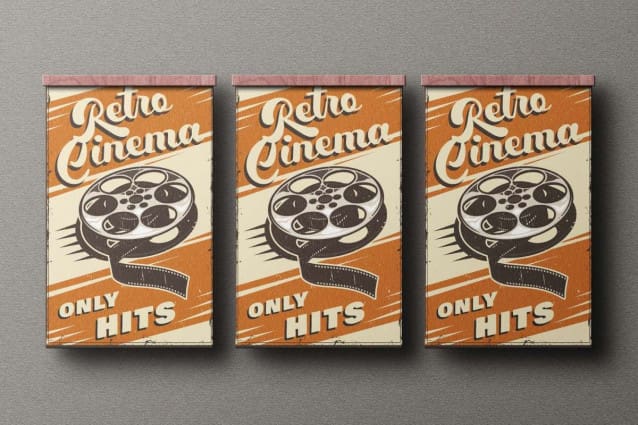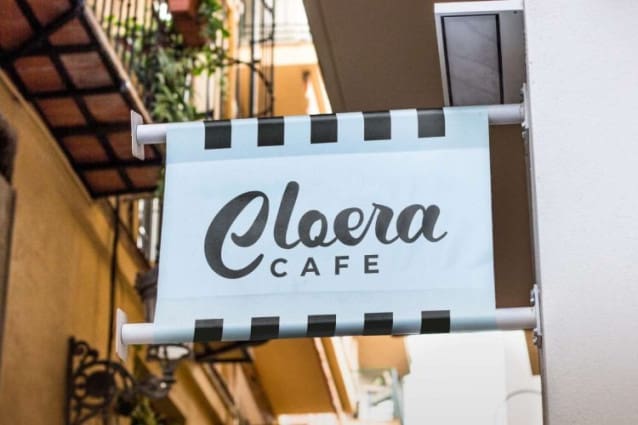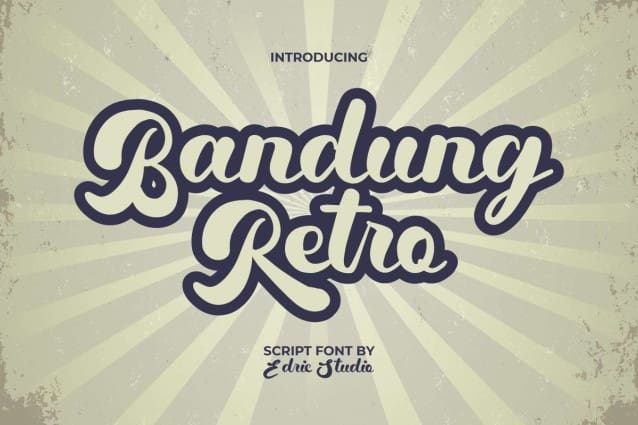
Bandung Retro Font
Bandung Retro Font is a classic 80’s vibe script font with an amazing groovy style. It comes with attractive shapes and styles also comes with multiple ligatures. As well as its name, inspired by the old city of Bandung which is sure to capture vintage magic with this script font making it suitable for any industry, such as accessories, bakery, café, camping and leisure, cinema, coffee shop, event organizer, fashion designer, homeware, movie, photography, printing, publishing, radio broadcasting, restaurant, and many more.
Bandung Retro Font comes with a full set of Uppercase and Lowercase Basic Characters, Number, a large range of Punctuation and Symbol and Ligature. It’s bubbly, gutsy, and irregular which is perfect for enhancing any project, such as, blogs, brand identity, brochure, business card, cover, envelope, headline, invitation, label, logo, menu, product packaging, quote, signage, social media posts, stationery, sticker, title, website, or any of your creative design projects.